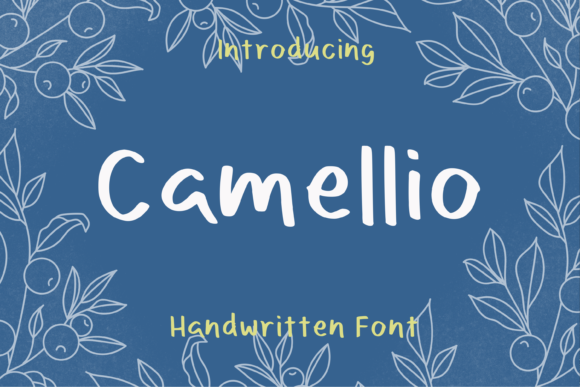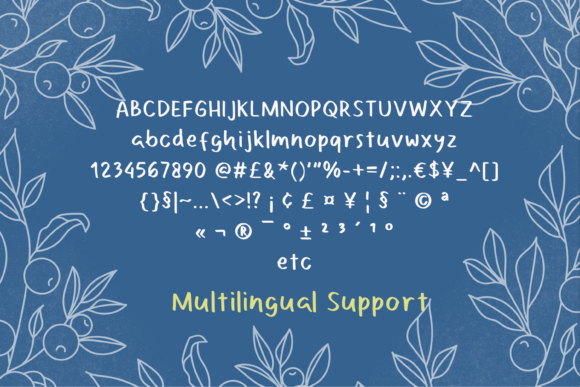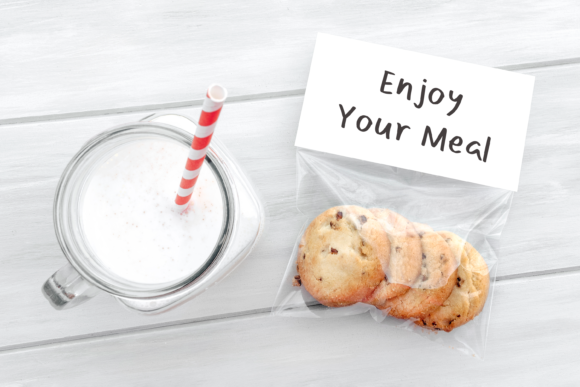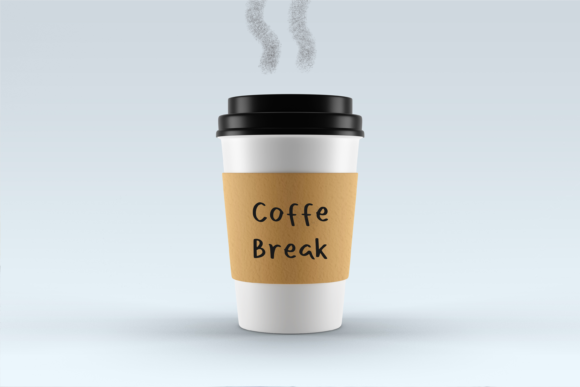
About Camellio Font
Camellio is a smooth and friendly handwritten font. Its casual and joyful style makes it appear wonderfully down to earth, readable and, ultimately, incredibly versatile.